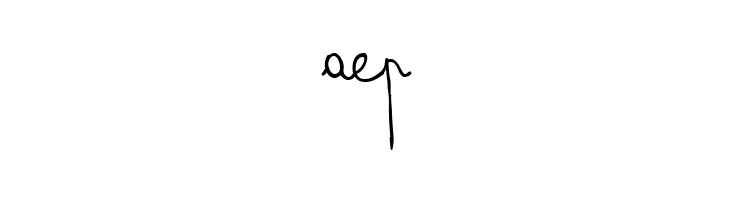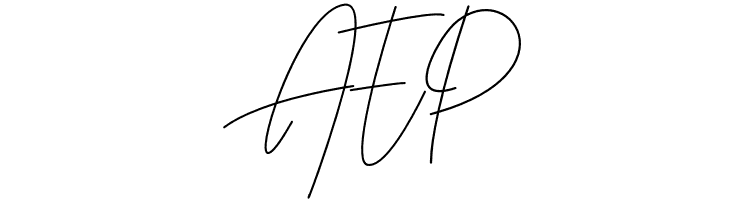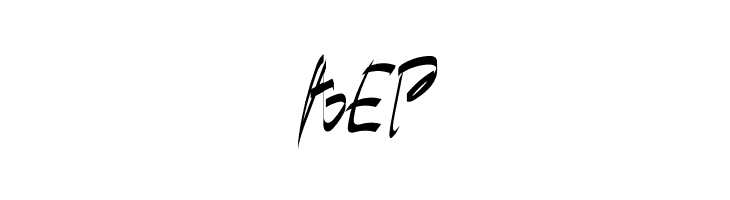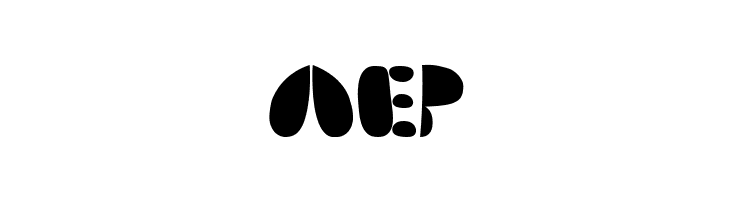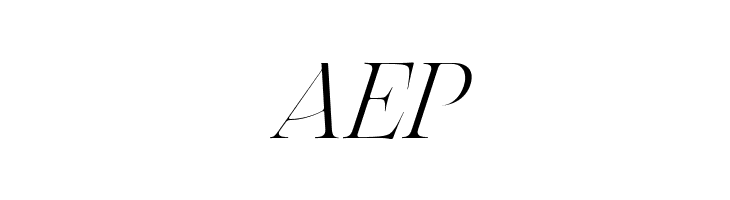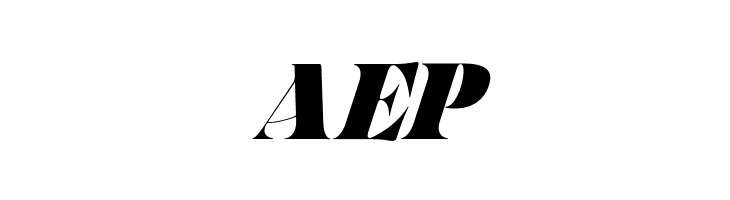
A modern, italic font with clean lines and balanced proportions.
A modern sans-serif font with clean lines and balanced proportions.
A bold, playful font with high contrast and rounded shapes, perfect for decorative use.
A playful, casual handwritten font with fluid strokes and a friendly appearance.
A playful, handwritten cursive font with fluid, connected strokes.
A bold, italic serif font with dramatic serifs and a modern flair.
A modern, italicized font with medium contrast and bold strokes.
A bold, italic font with high contrast and dynamic style.
An elegant italic serif font with high contrast and flowing curves.
A light, italic serif font with high contrast and elegant style.
An elegant italic font with medium contrast and a sophisticated style.
A thin, italic typeface with elegant, flowing lines and a modern aesthetic.
A dynamic and expressive font with sharp, angular strokes and a sense of motion.
A modern, sleek font with tall, narrow characters and a minimalist design.
A modern, elegant handwritten script with fluid, cursive strokes.
A modern, geometric sans-serif font with clean, rounded edges and uniform stroke width.
A bold, hand-drawn font with a rough, textured, and angular style.
An ornate, decorative font inspired by the Art Nouveau style, featuring intricate curves and details.
A bold, angular font with a modern, edgy style.
A bold, angular font with a geometric, paper-folded style.
A decorative illustration of art supplies arranged in a linear, whimsical style.
A bold, Art Deco-inspired font with geometric shapes and intricate patterns.
A bold, decorative font with an Art Deco style and intricate patterns.
A bold, artistic font with high contrast and playful curves.
A bold, flowing font inspired by the Art Nouveau movement, featuring elegant curves and organic shapes.
A decorative Art Nouveau font with bold contours and intricate, organic shapes.
An elegant, elongated font with Art Nouveau-inspired curves and fluidity.
A bold, decorative font inspired by the Art Nouveau style with flowing, organic shapes.
A bold, Art Nouveau-inspired font with flowing, organic shapes and intricate detailing.
An ornate Art Nouveau font with decorative uppercase letters and stylized lowercase characters.
An ornate, Victorian-style font with decorative flourishes and elegant details.